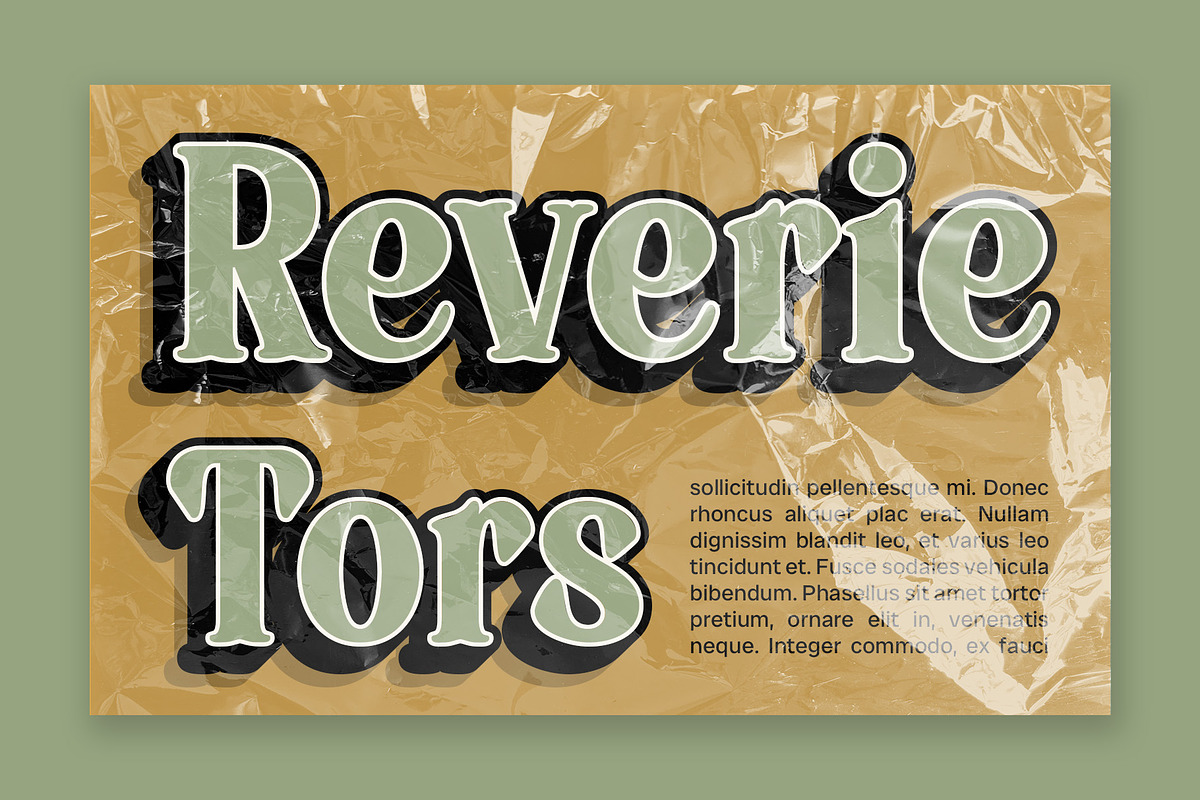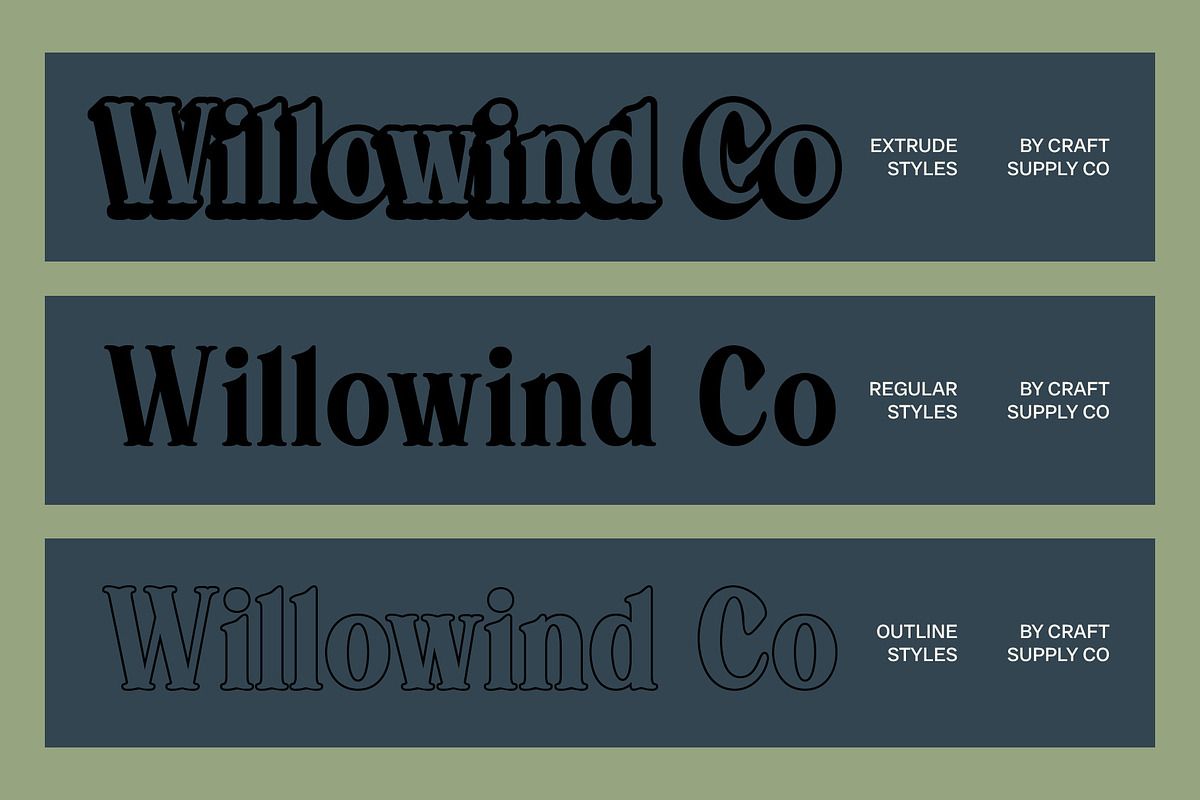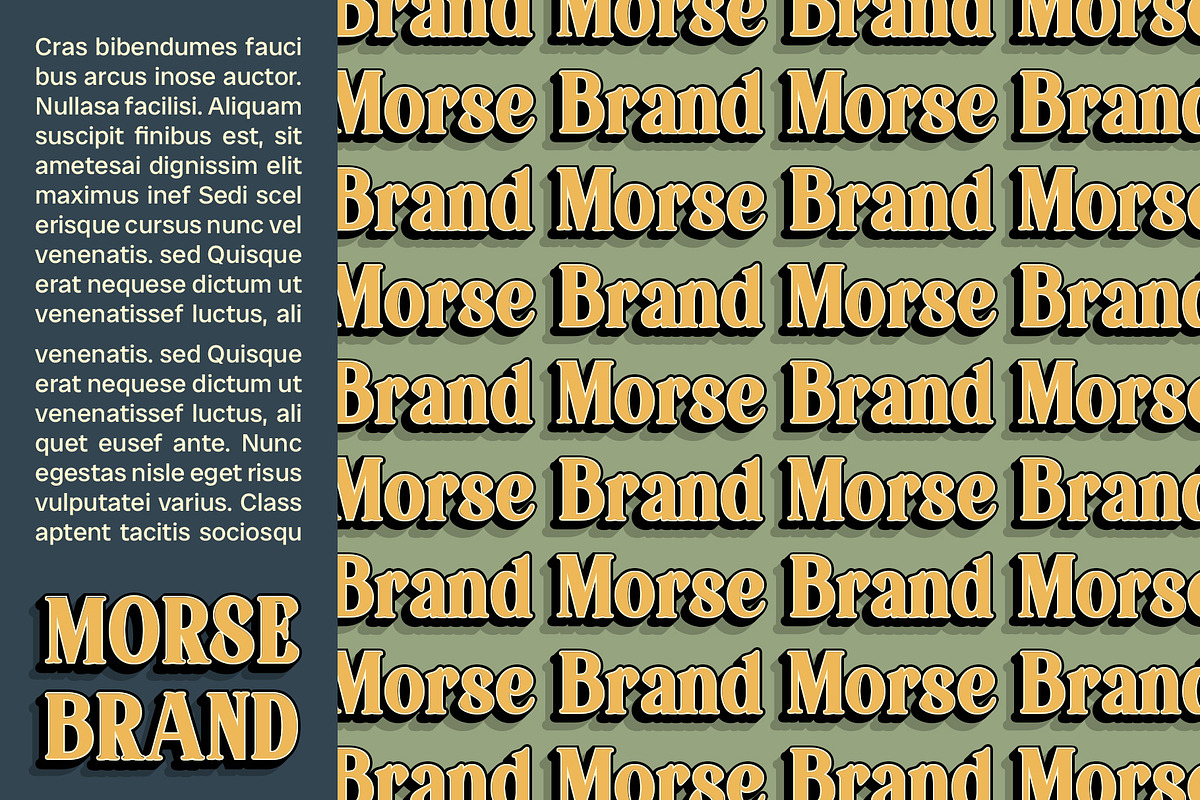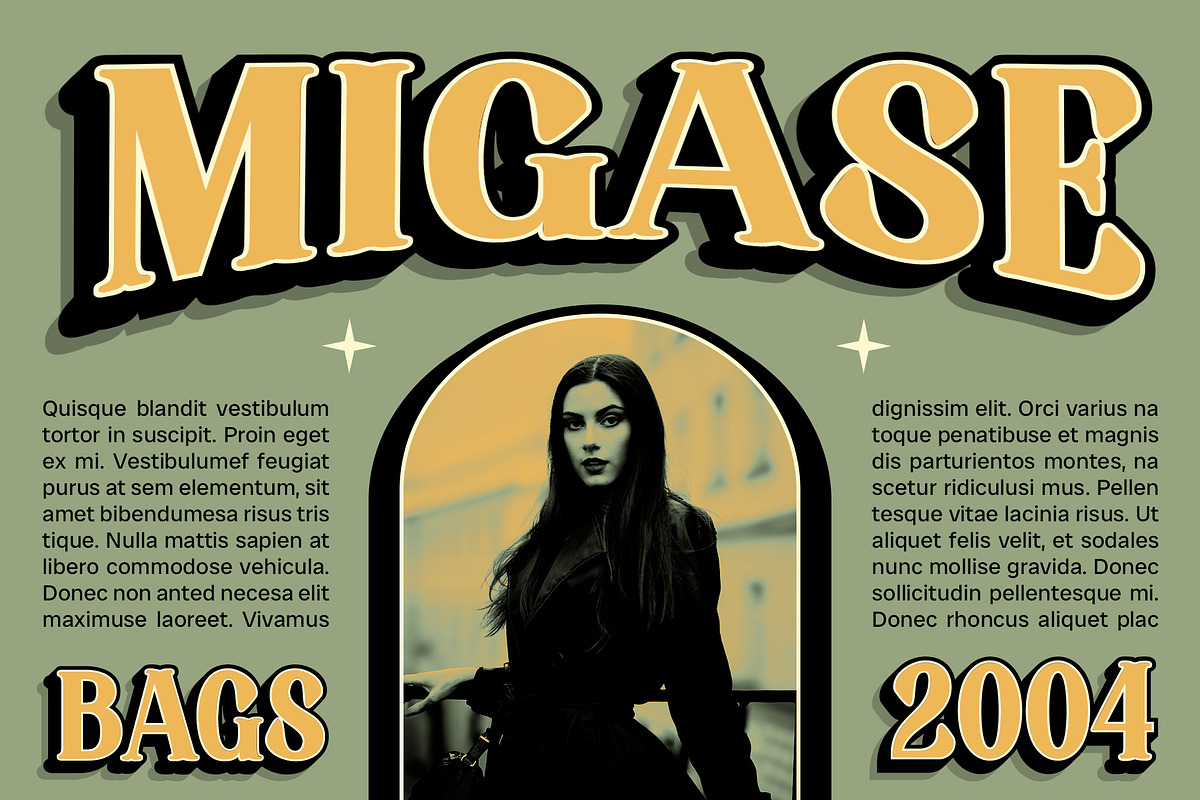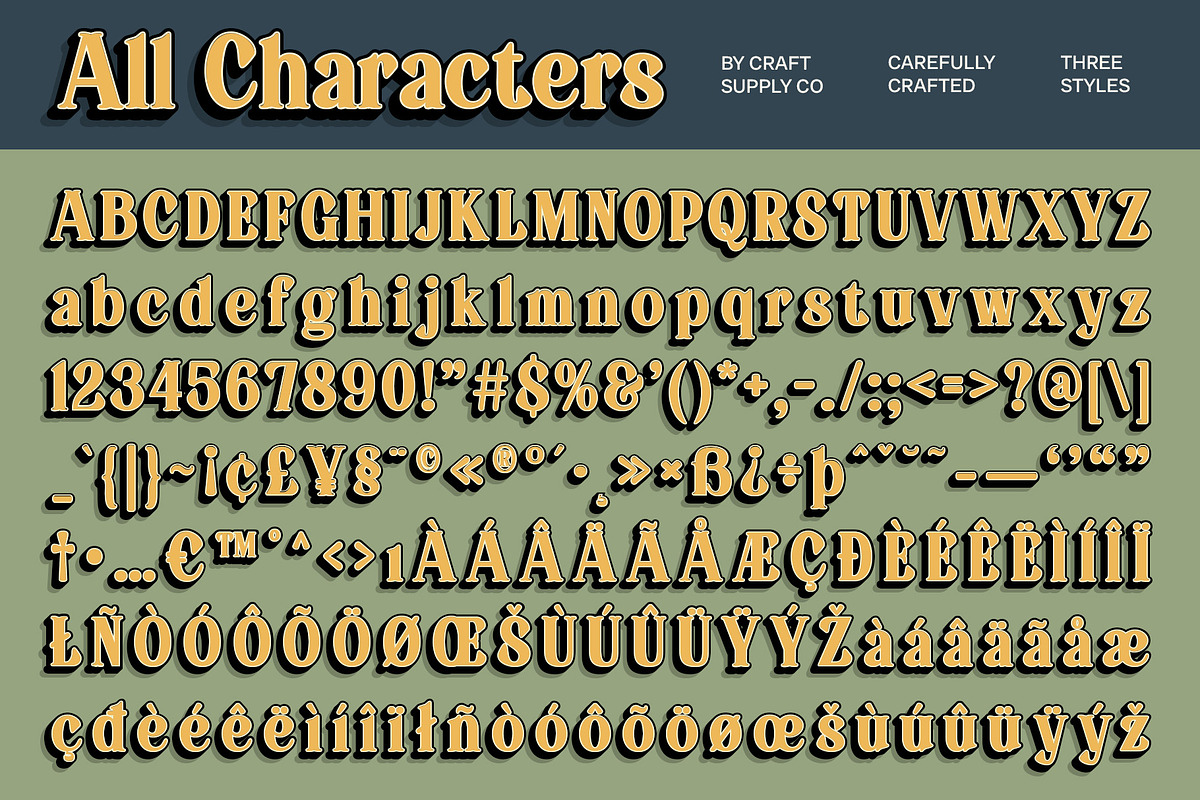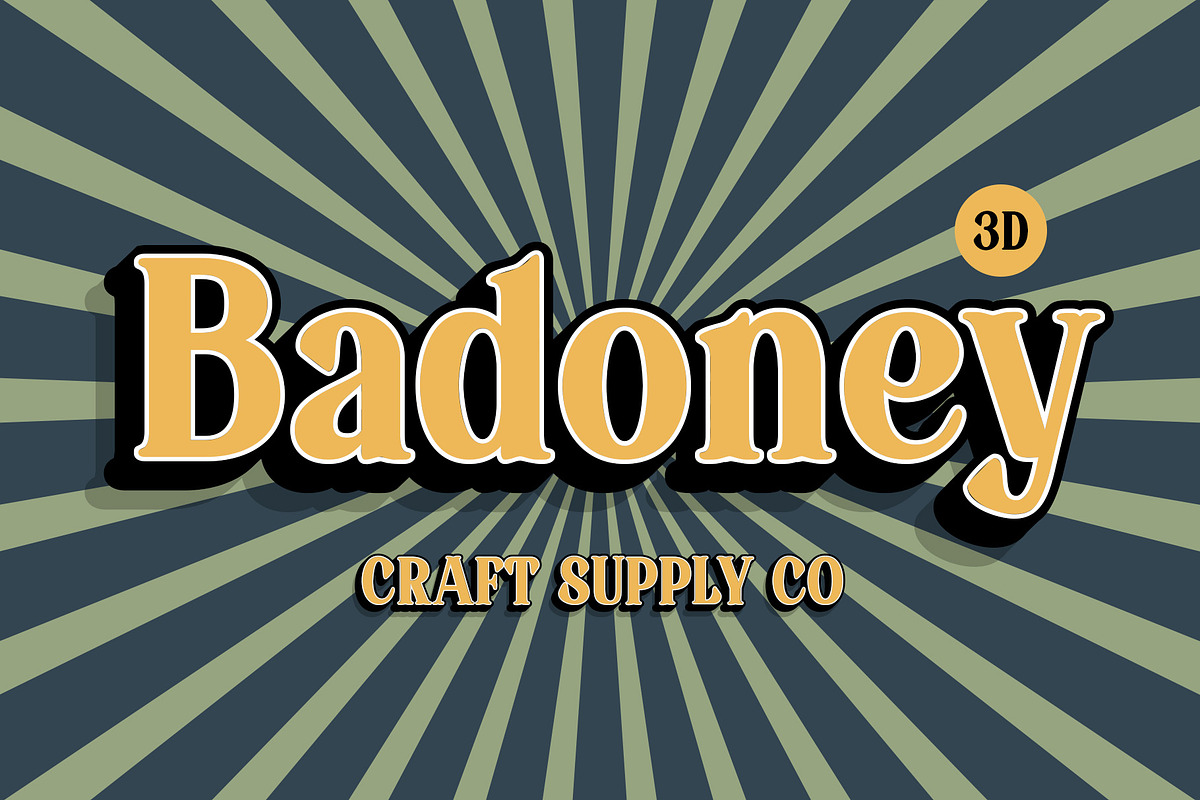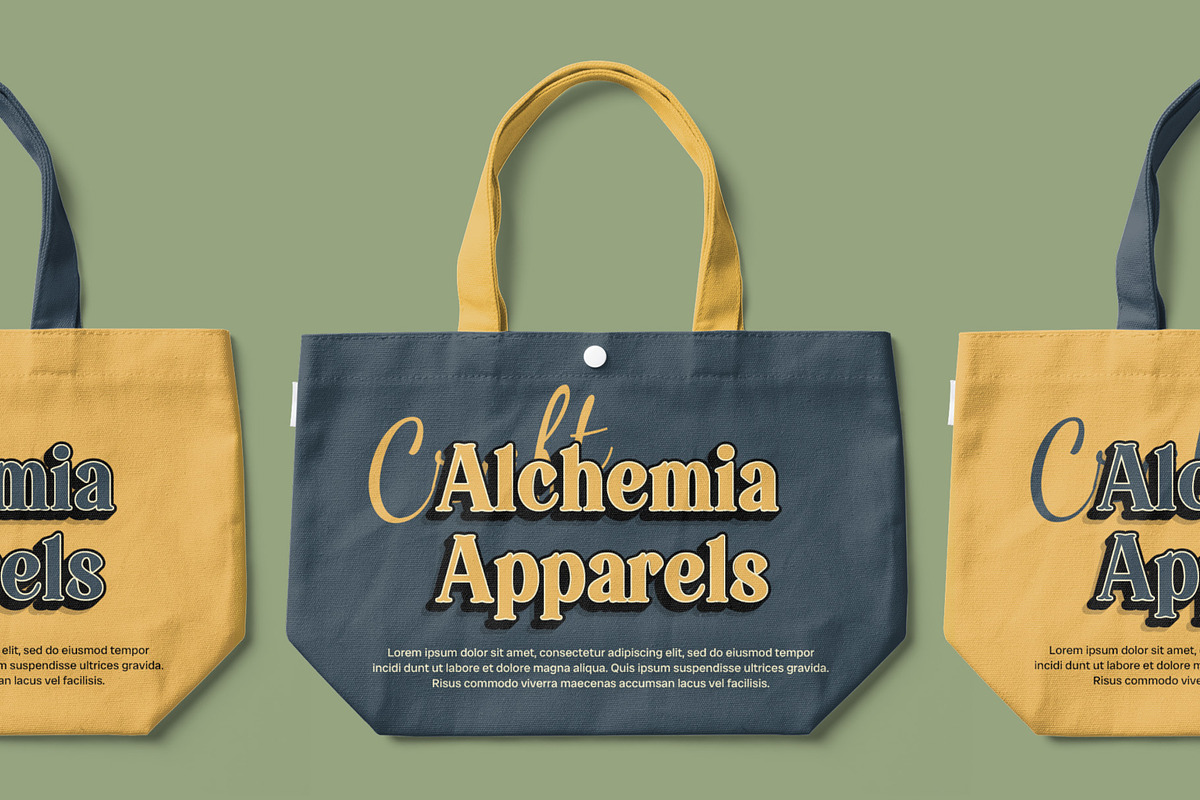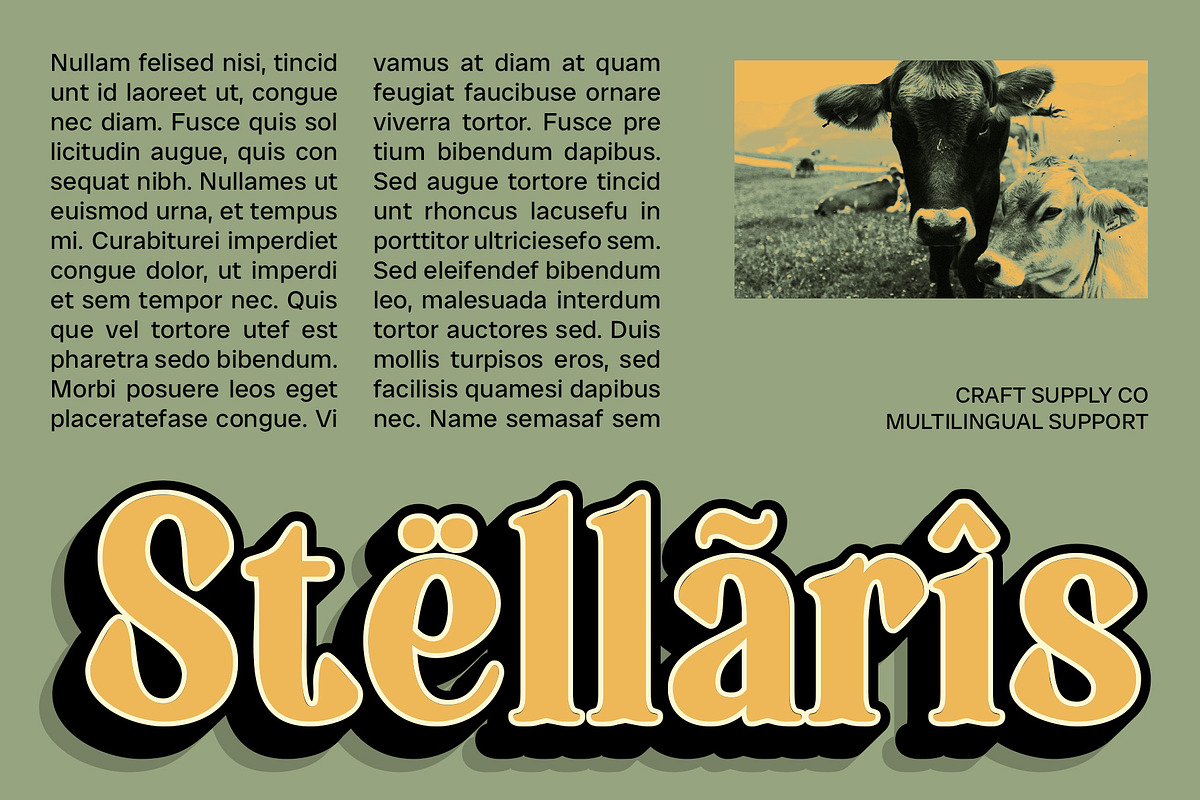
Badoney 3D
Badoney 3D Font: Retro Serif with Modern Dimension
Classic Retro Design with Modern 3D Effects Badoney 3D is a serif font that combines the timeless charm of classic retro design with contemporary 3D effects. Its bold lines and elegant details evoke a nostalgic feel, while the 3D effects add depth and a striking visual presence. This fusion of traditional and modern elements creates a unique and impactful font that stands out.
Bold Lines and Elegant Details for Nostalgic Appeal The bold serif lines and refined details of Badoney 3D reflect a bygone era, enhanced by the dimensional effects that bring a fresh, modern twist. This combination provides a rich, nostalgic aesthetic that is perfect for capturing attention and evoking a sense of classic elegance.
Ideal for Vintage and Contemporary Designs Perfect for posters, logos, and promotional materials, Badoney 3D excels in delivering a vintage style with a contemporary edge. Its classic design and modern dimension make it ideal for projects that seek to merge a retro vibe with standout, eye-catching visuals.
Versatile for Impactful and Elegant Projects Badoney 3D’s blend of classic retro elements and 3D effects ensures versatility across various design applications. From dynamic promotional materials to distinctive logos, this font provides a compelling visual statement that enhances both vintage charm and modern sophistication.
- Badoney Regular
- Badoney Outline
- Badoney Extrude Right
- Badoney Extrude Left